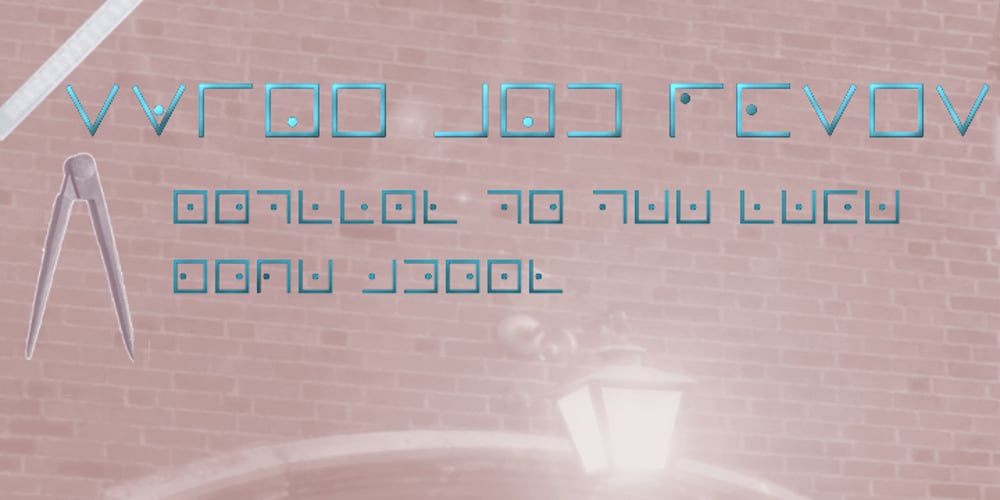
Swine And Roses
Swine And Roses font
Swine And Roses Font Family was designed by Shane Brandes and published by Proportional Lime. Swine And Roses contains 1 styles and family package options. It’s cool to be square. Among the many strange attempts to conceal writing, these two systems allegedly used by the Masons have a wonderful simplicity and relative ease of use. Both systems, the Rosicrucian and Free Mason, (also called the Pigpen cypher) as simple replacement ciphers never offered very great cryptographic security, but certainly would ensure that the casual observer would not be able to read documents written in such scripts.